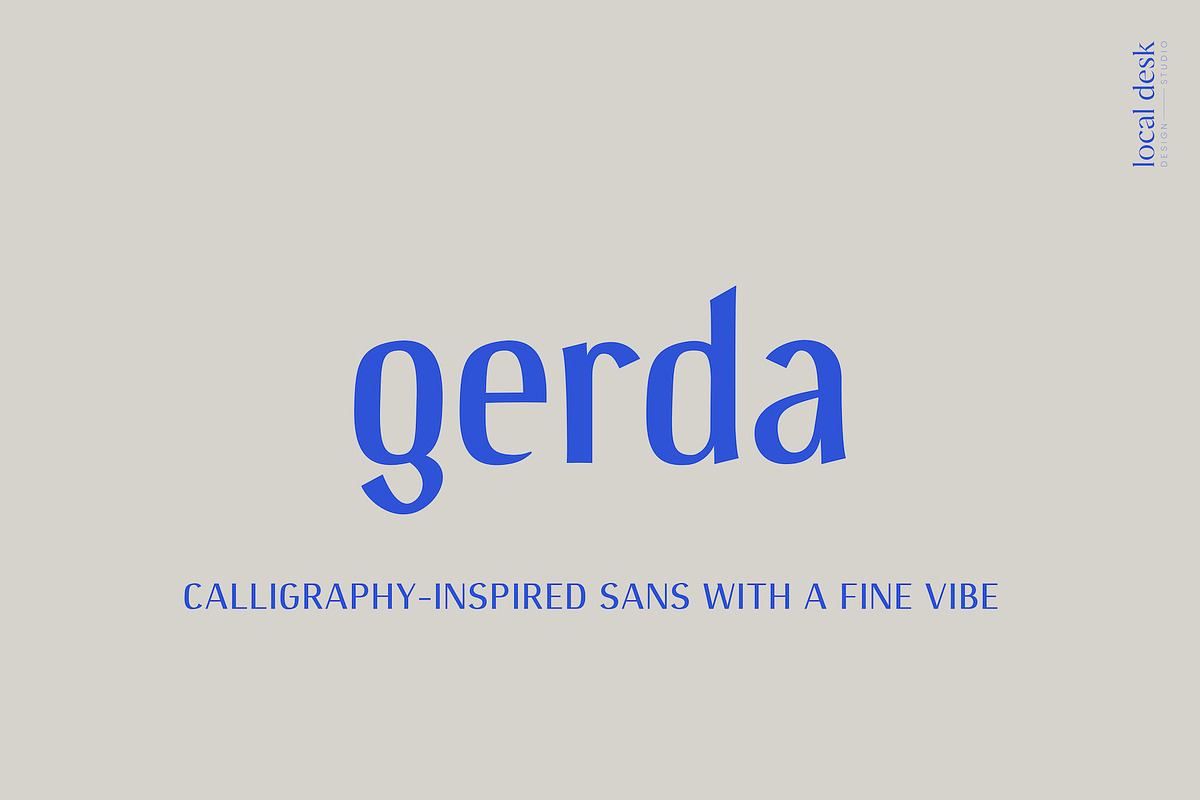
Gerda – A Calligraphic Sans Serif Font Free Download is a unique typeface that blends the clean, modern style of a sans-serif with the elegance of calligraphy. Featuring smooth, flowing curves and soft edges, Gerda adds a touch of sophistication and fluidity to your designs. Perfect for modern branding, editorial design, invitations, logos, and social media graphics, this font brings a refined yet approachable feel to any project.
The combination of calligraphic influences with the simplicity of a sans-serif gives Gerda a contemporary, organic vibe, making it versatile for both professional and creative applications.